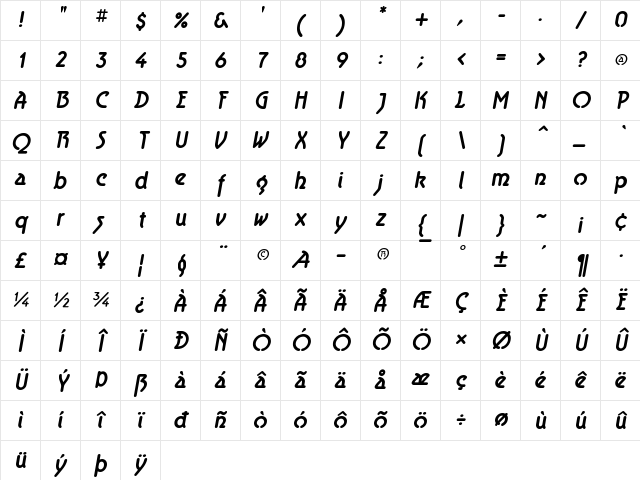
Complete Aerolite Bold Italic Regular glyph index. Displaying only characters natively supported by Aerolite Bold Italic Regular font.
Aerolite Bold Italic is a composed and adaptable typeface that performs quietly and consistently across a wide range of design contexts. The slanted form adds forward momentum and visual energy. Its bold stroke weight gives it real presence on the page.
Pro Tip: Use Aerolite Bold Italic for emphasis, pull quotes, and subheadings where its slanted energy can add rhythm to the layout.